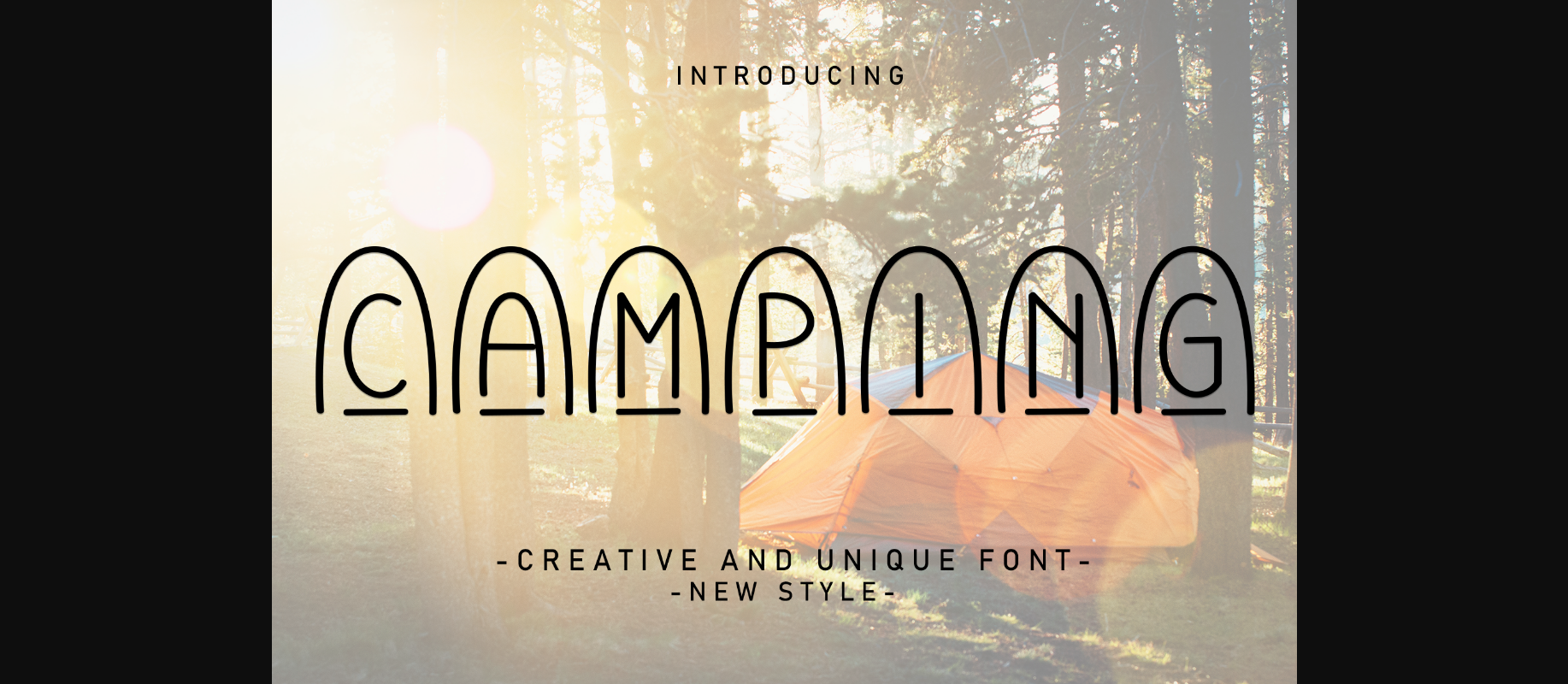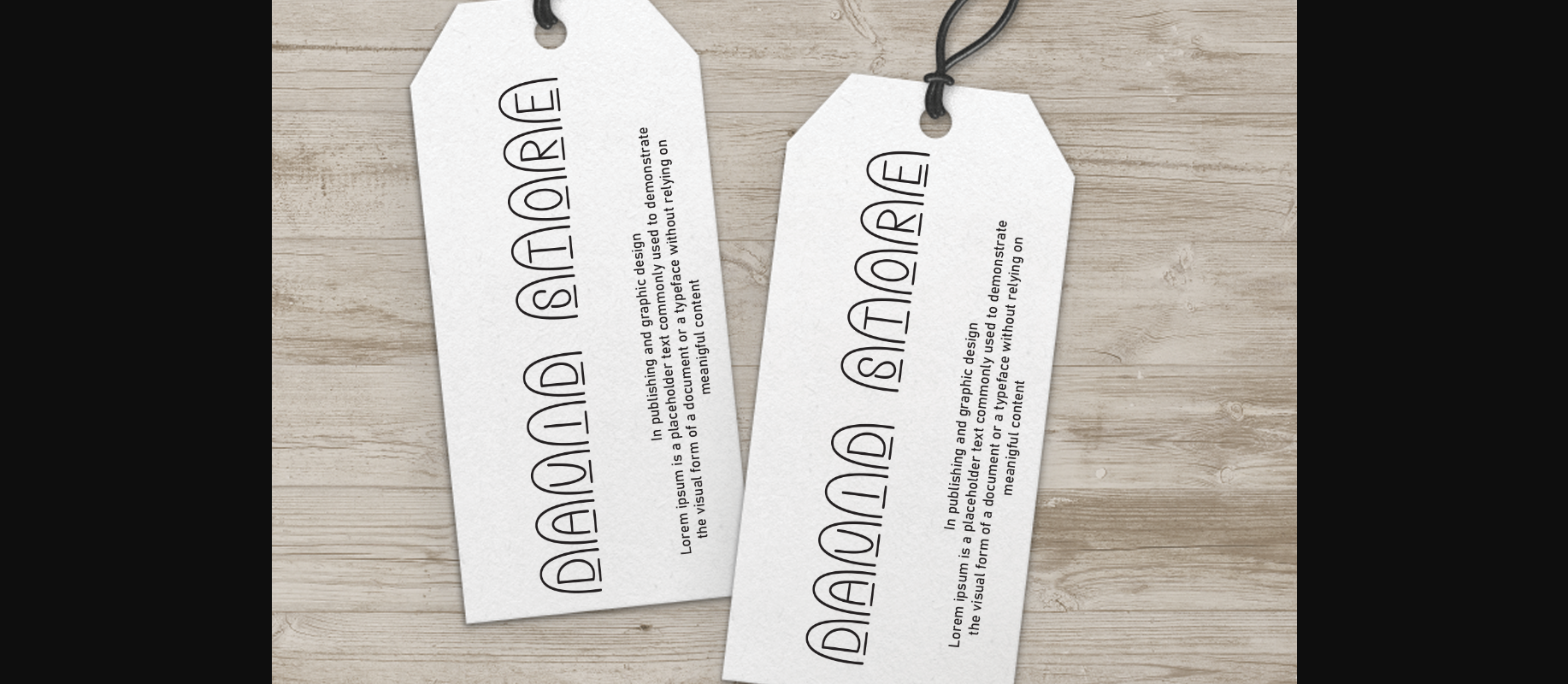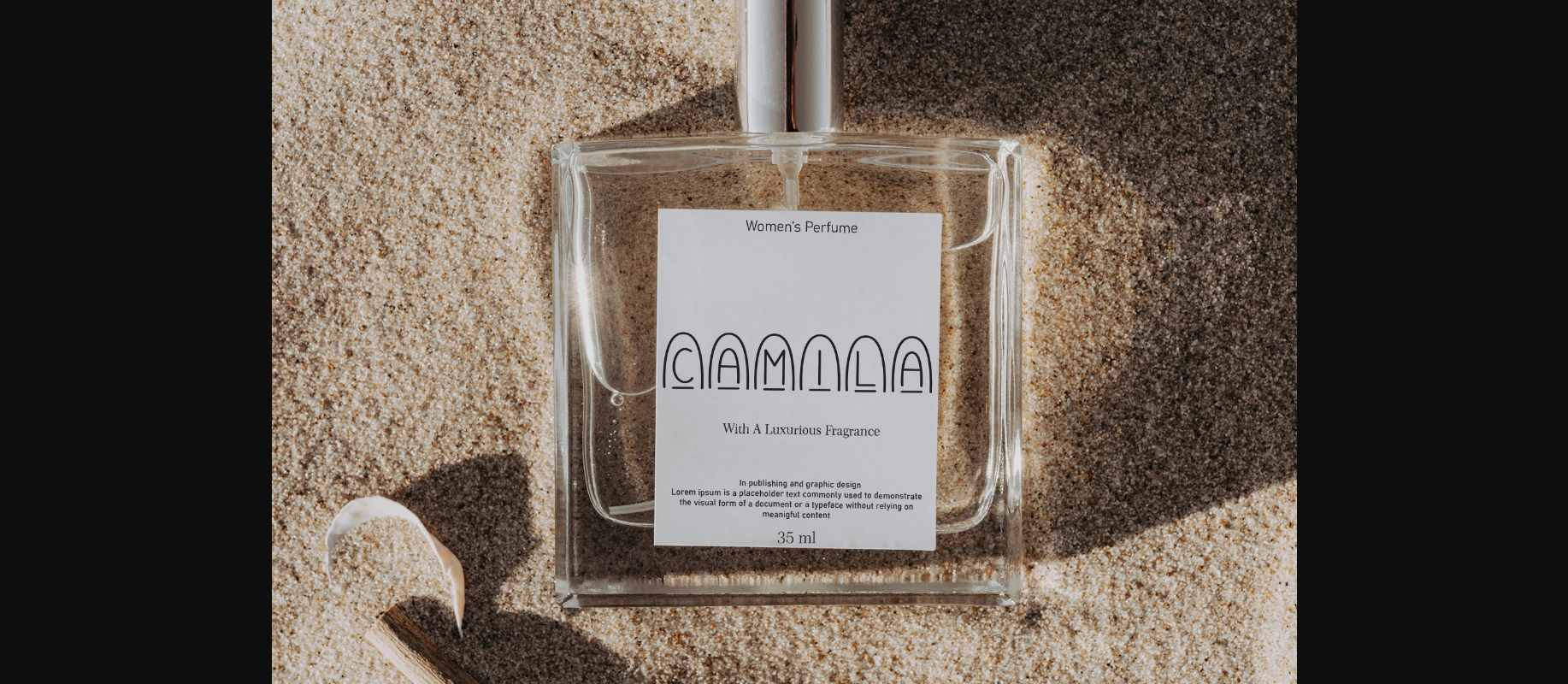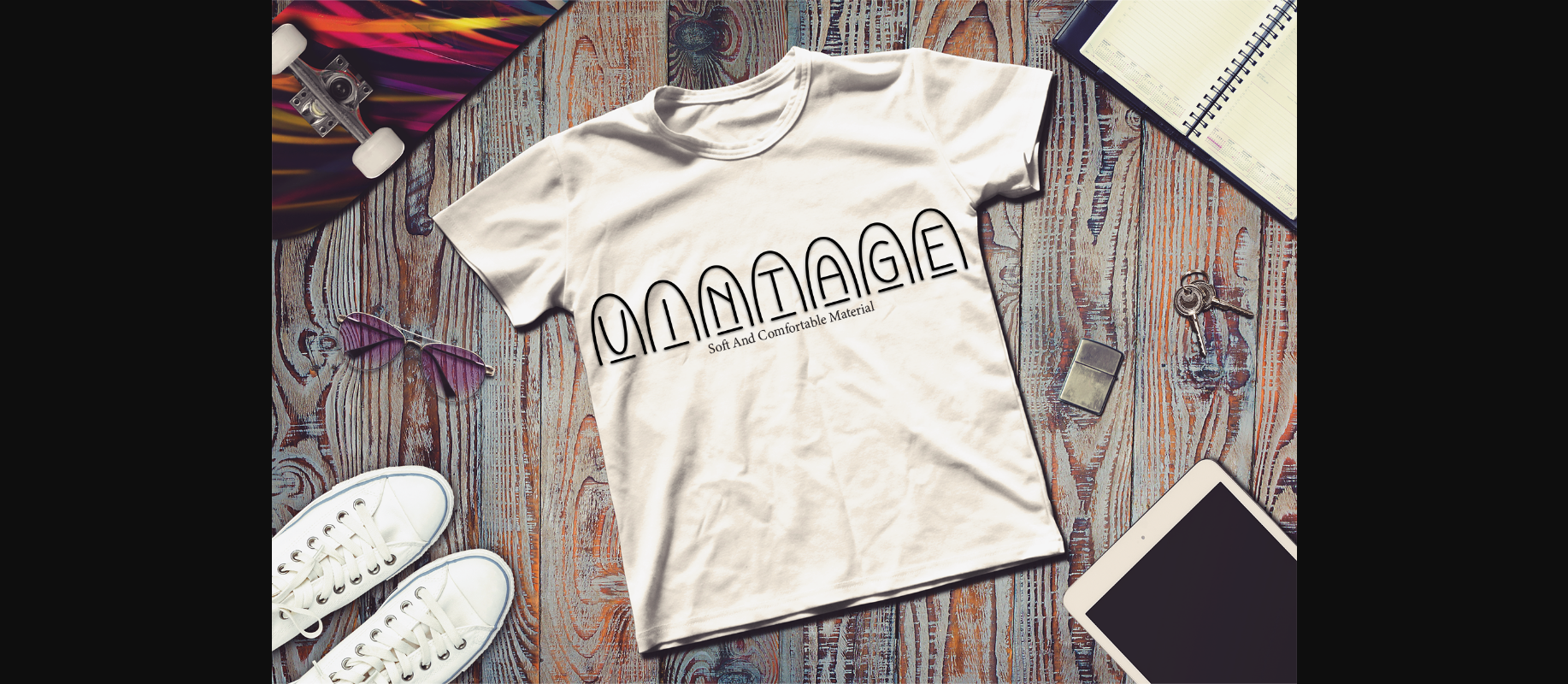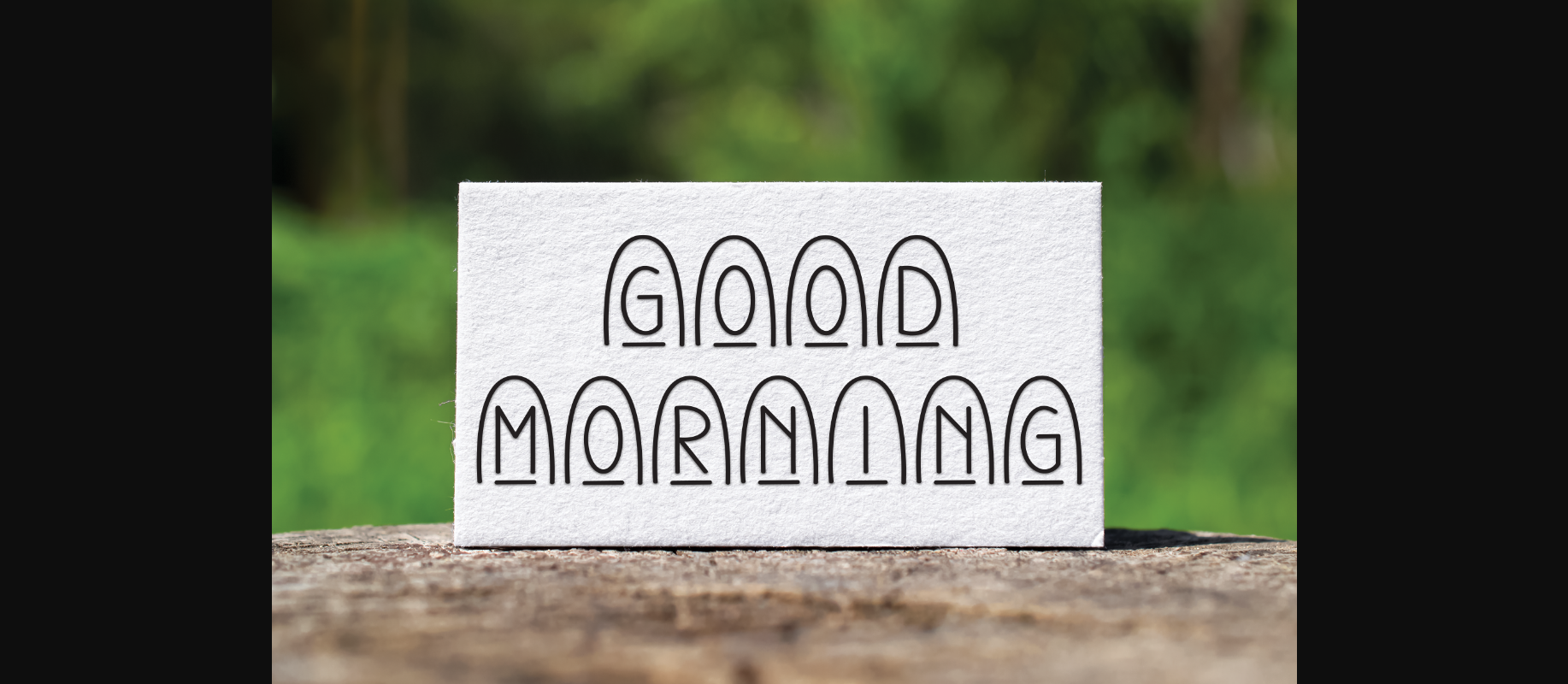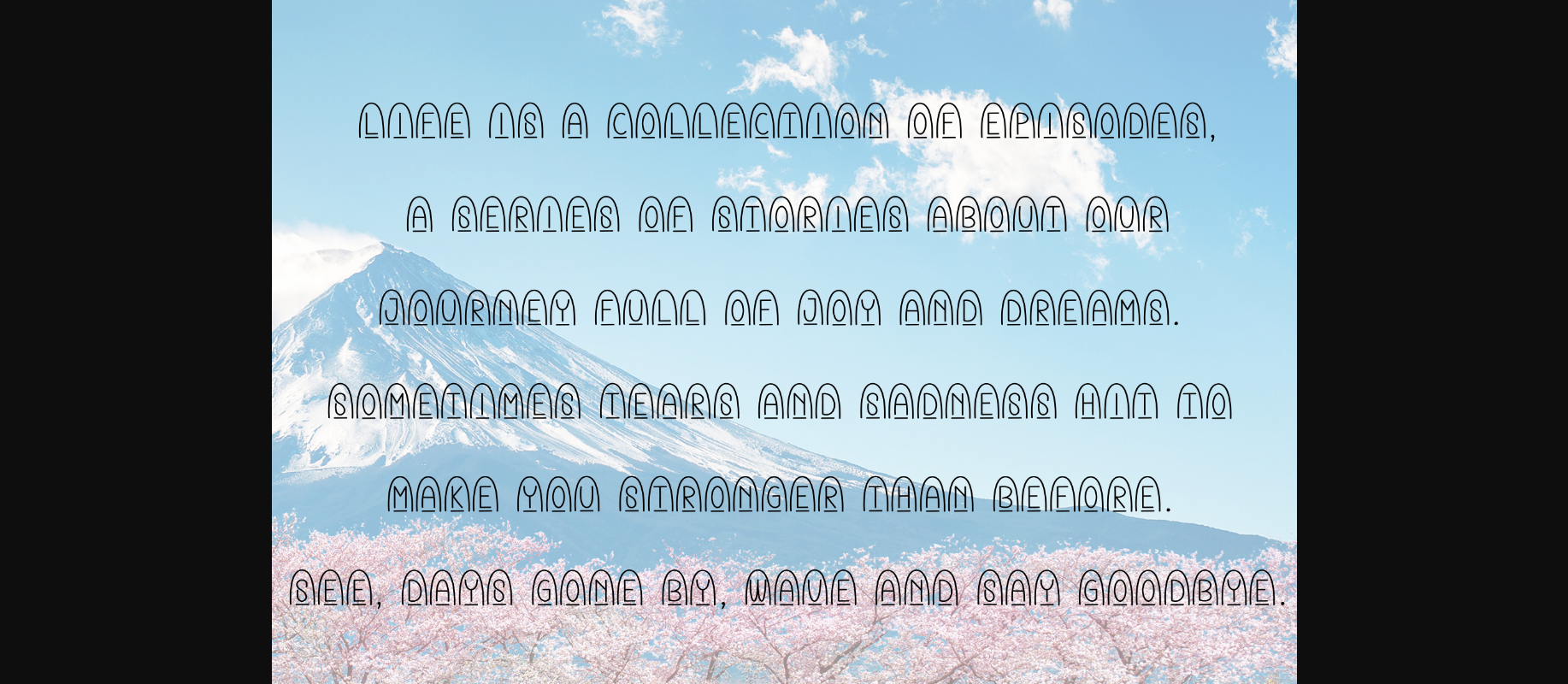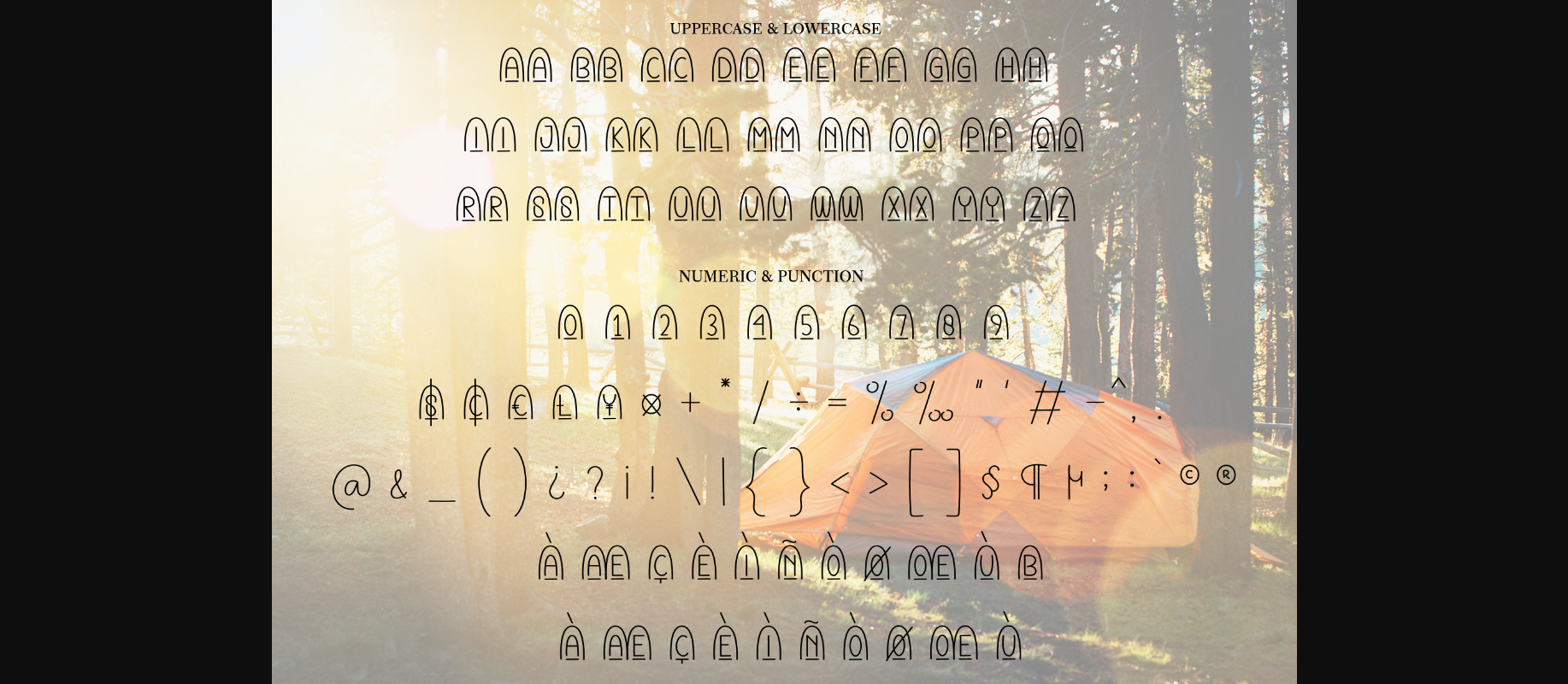
HomeDecorative FontsCamping Font Decorative Fonts Camping Font FacebookXPinterestWhatsApp 1 of 10 ... Camping Font Poster 2... Camping Font Poster 3... Camping Font Poster 4... Camping Font Poster 5... Camping Font Poster 6... Camping Font Poster 7... Camping Font Poster 8... Camping Font Poster 9... Camping Font Poster 10... About Camping Font Camping is an incredibly cool and unique decorative font. This modern and bold vibe can easily apply to your favorite designs. DOWNLOAD NOW People also explored Dashing Font Ballet Font Long Island Font Regad Font Samantha Font Adore&Funny Font Sweetyhearts Font History Font Pretty Berelly Font 324 0 TagsCampingCamping Font Previous articleLinedoor FontNext articleBallon Font LEAVE A REPLY Cancel reply Comment: Please enter your comment! Name:* Please enter your name here Email:* You have entered an incorrect email address! Please enter your email address here Website: Save my name, email, and website in this browser for the next time I comment. Personal Use Free BD Console Personal Use Free Read more about this font Happy Garden Personal Use Free Read more about this font Critical Personal Use Free Read more about this font Lynoselt Personal Use Free Read more about this font BLOG How to Cut Any Font on Cricut: Convert a Font to SVG (Free) Turn any font into a clean SVG so it cuts crisp on Cricut - a quick 3-step workflow using a free font-to-SVG tool. Free vs Paid Fonts: Why Investing in Premium Fonts Is Worth It Exploring Font Trends Top 7 Google Fonts Alternatives for Faster and Privacy-Friendly Web Design (2025)